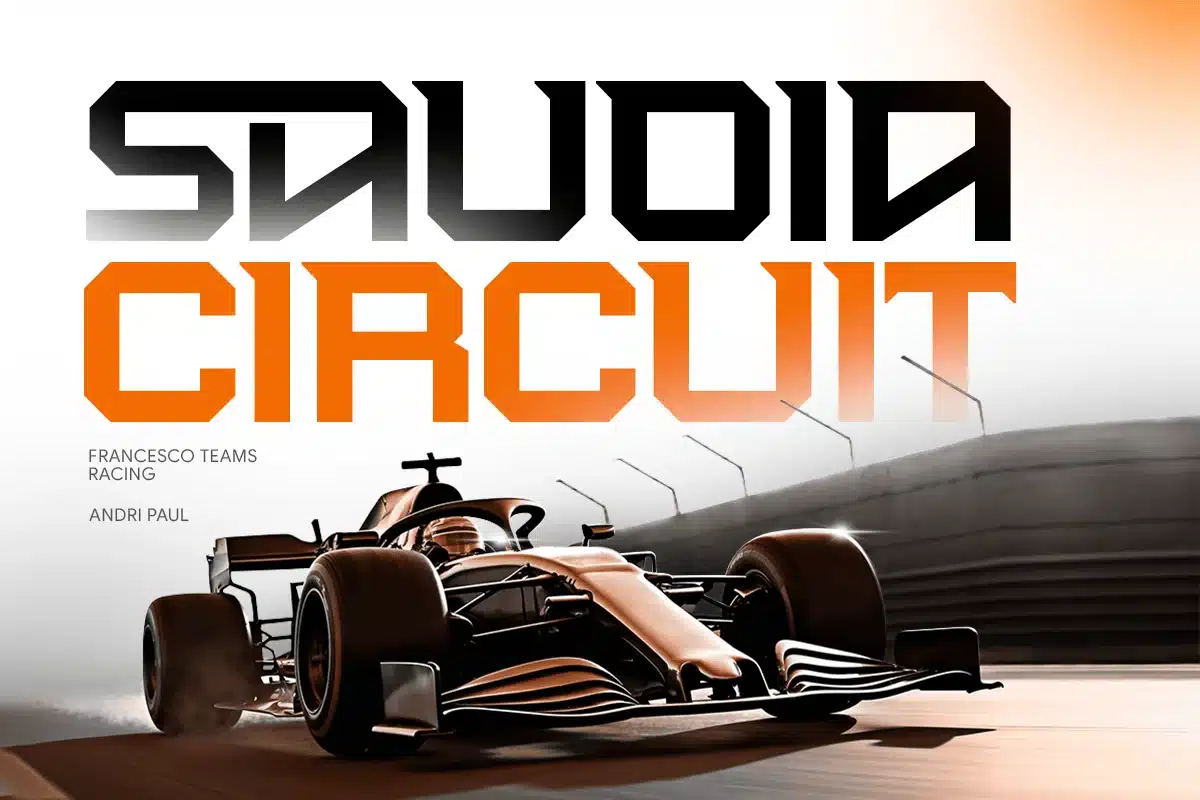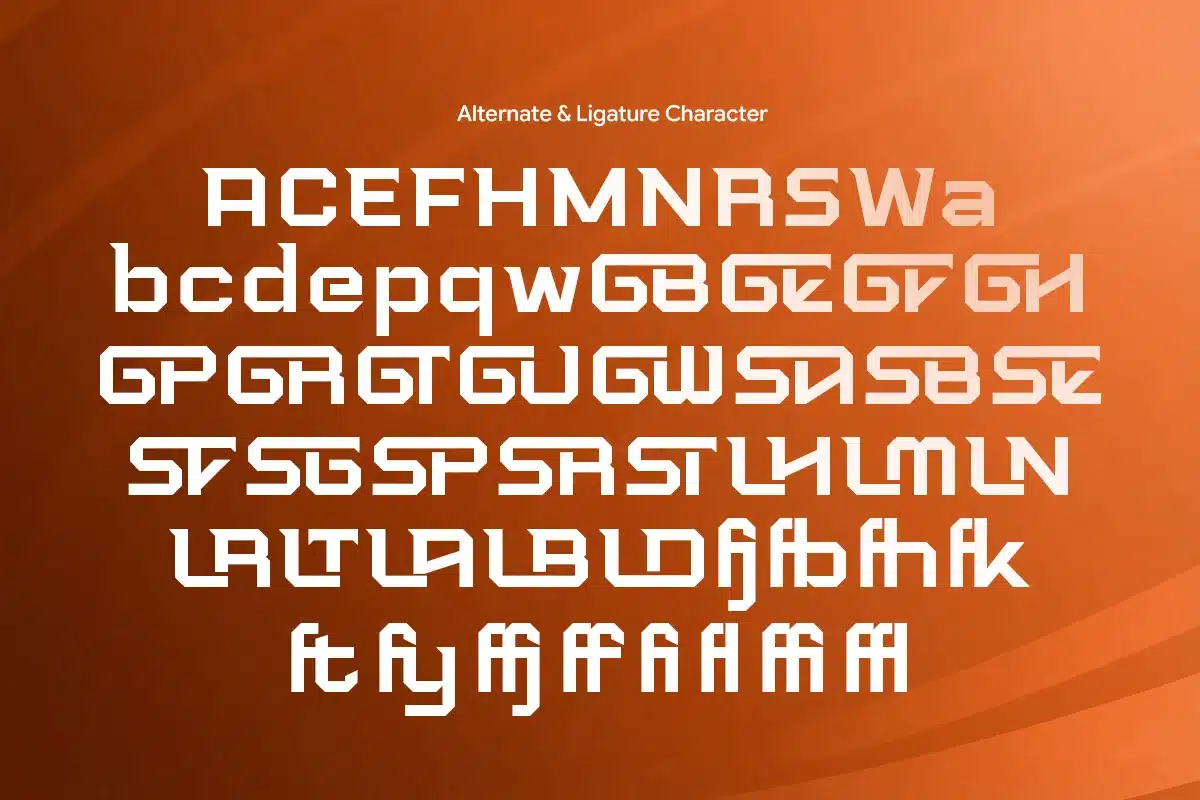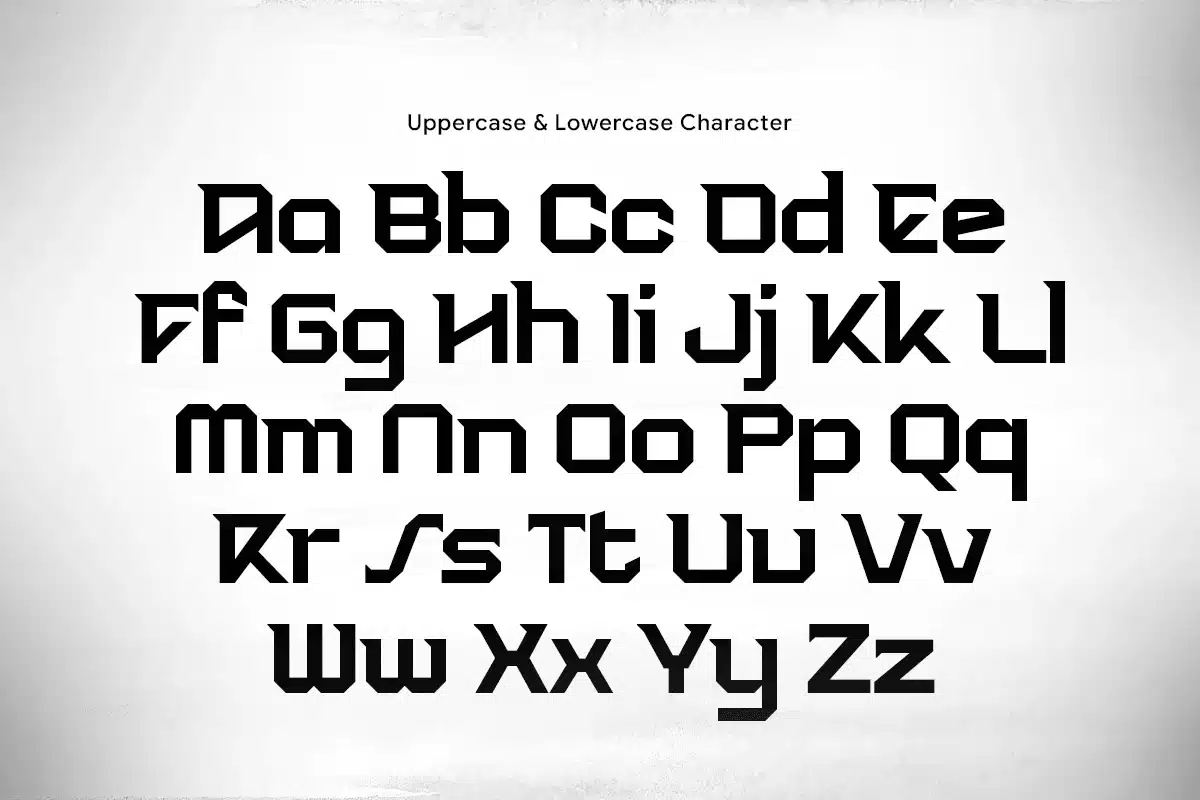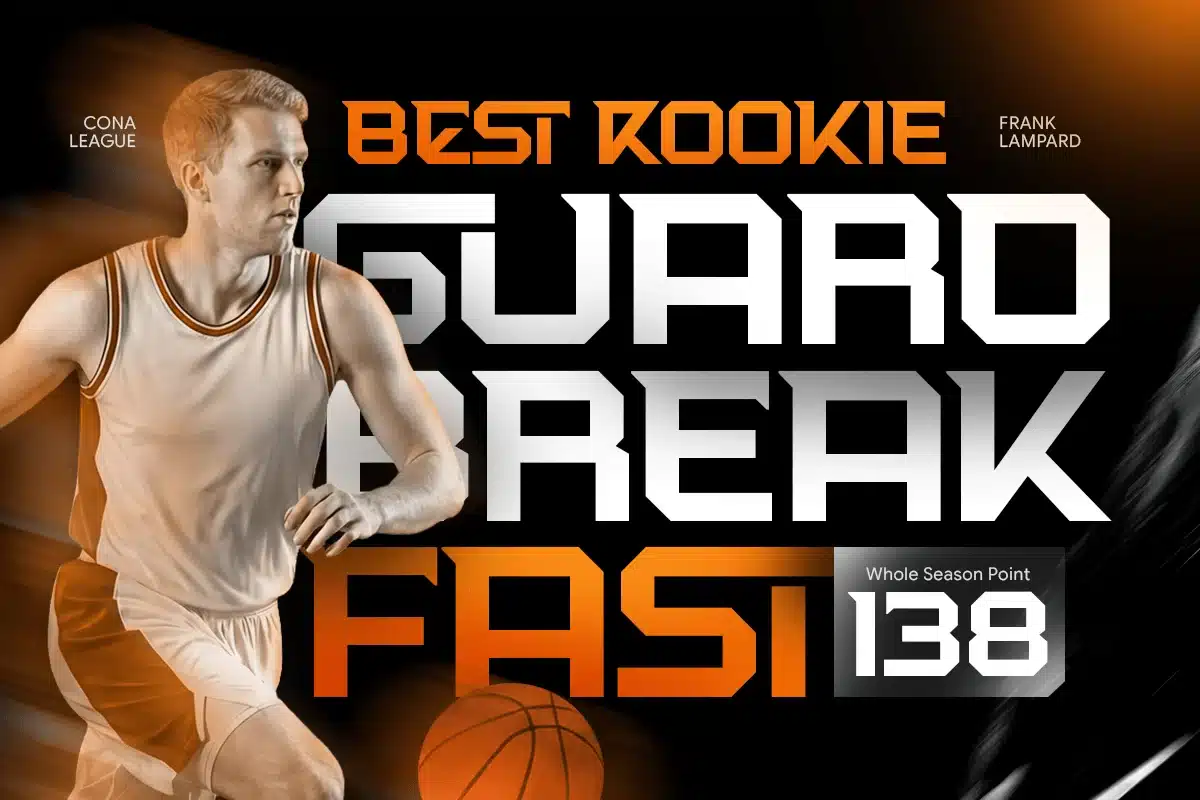
Kusser – Tech Sport Font
Kusser is a modern tech sport font designed to capture speed, power, and competitive energy in every letterform. Built with sharp angles, geometric precision, and a forward-moving structure, Kusser delivers a strong futuristic look that is perfect for sports branding, esports, racing visuals, and high-impact digital designs.
Inspired by the intensity of modern athletics and high-speed competition, this font features a bold condensed style that enhances readability while maximizing space efficiency—making it ideal for headlines, logos, and branding systems. Its dynamic shapes and technological aesthetic create a sense of motion and innovation, perfect for projects that demand attention and energy.
Whether used for esports teams, automotive branding, fitness campaigns, or tech startups, Kusser ensures a powerful and professional visual identity.
Kusser – Tech Sport Font Features:
- Futuristic sport style with tech-inspired design
- Condensed and bold structure for impactful headlines
- Uppercase, lowercase, numerals, and punctuation
- Multilingual support and stylistic alternates
- Ideal for esports, racing, fitness, and branding